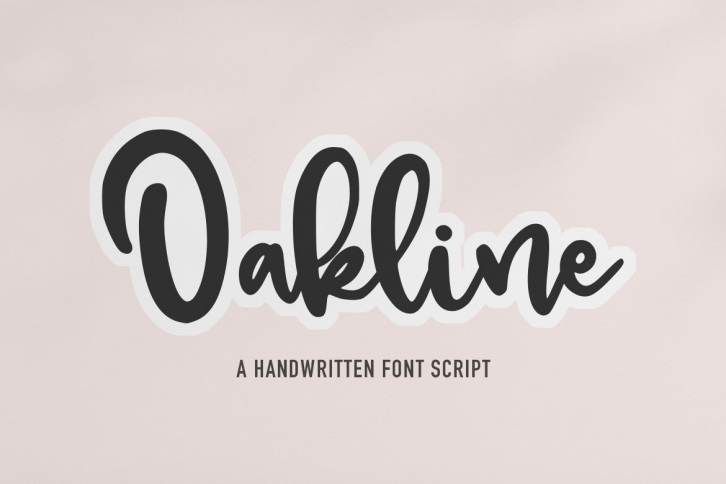
Oakline is a trendy and unique font with an authentic style. It was designed by FallenGraphic Std and it's a great choice for creative people who need such a font. It was released on September 27, 2021 and the file size is 12.4 MB. Oakline will add an organic vibe to any design idea!